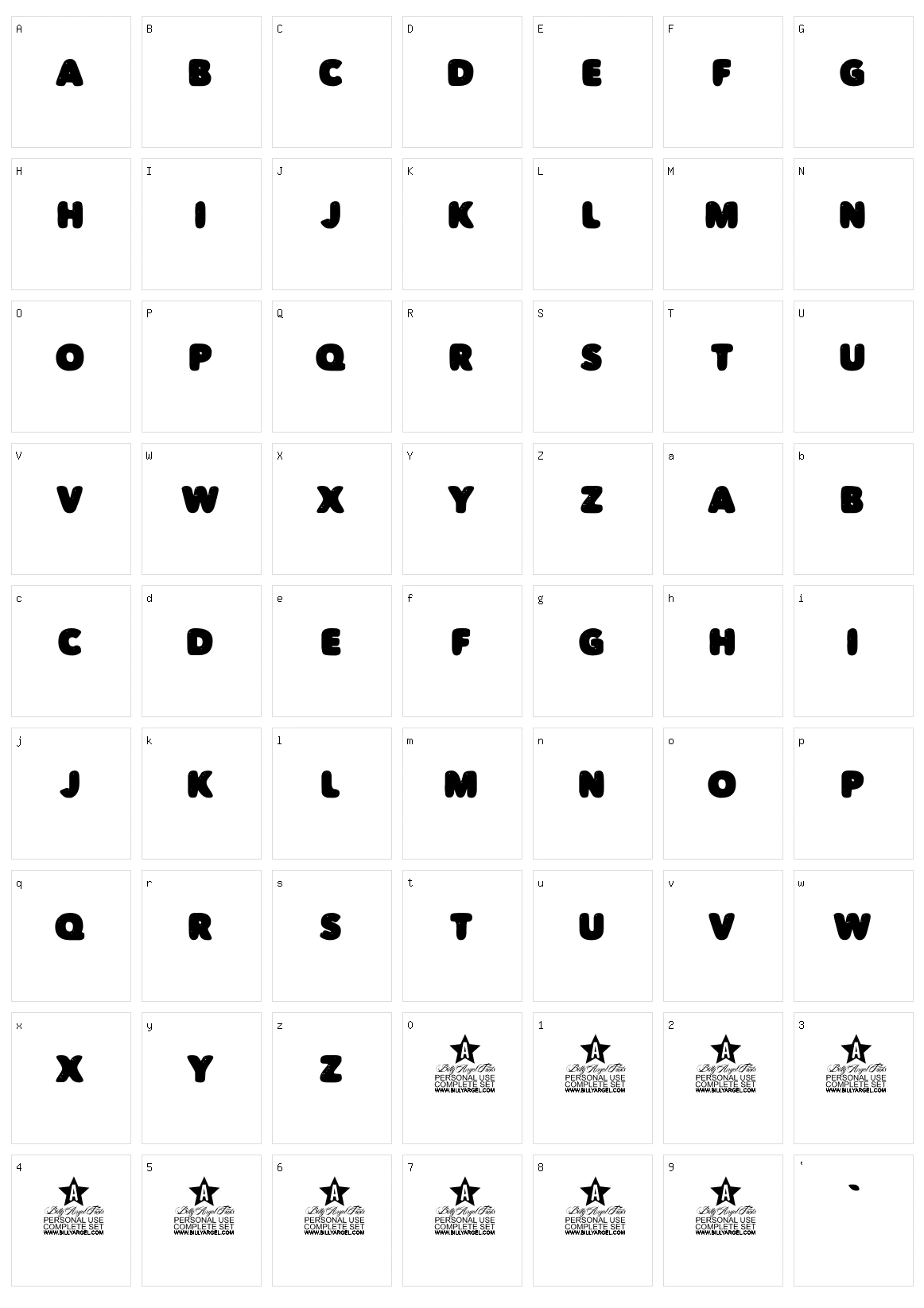
The free font Cactus Pizza is carefully designed by Billy Argel Fonts ®, showcasing a thoughtful balance of creativity and usability and falls under the Cartoon font style. When you download the ZIP file, it contains only 9708.17 KB of font files, making it lightweight and quick to download. Please review the license details below to understand permitted usage and distribution rights. If license information is not available, we recommend using this font for personal projects only or contacting the author directly for commercial usage permissions.